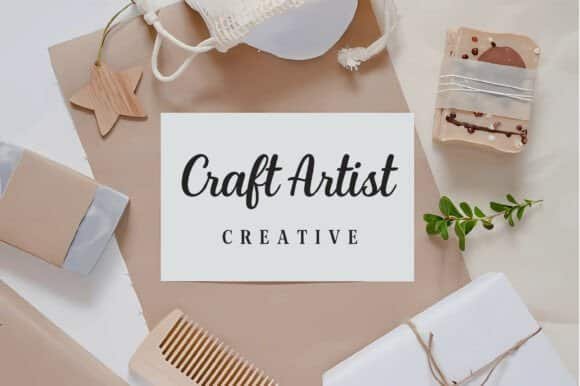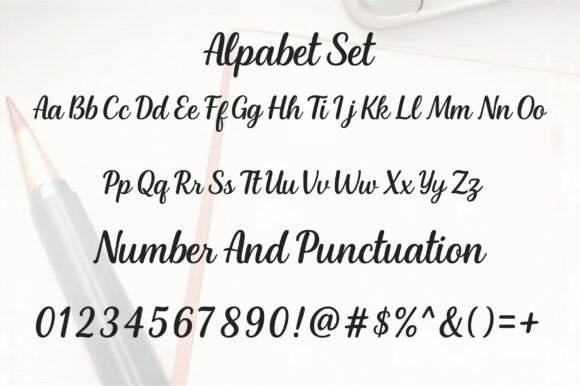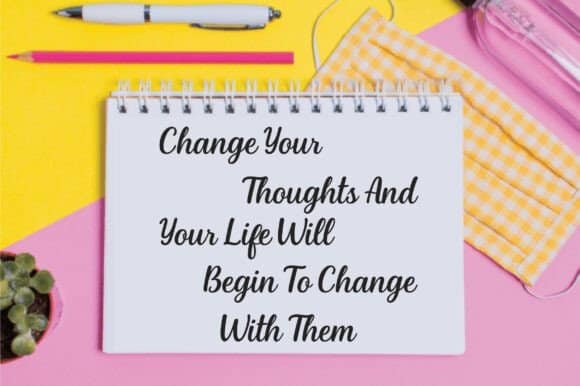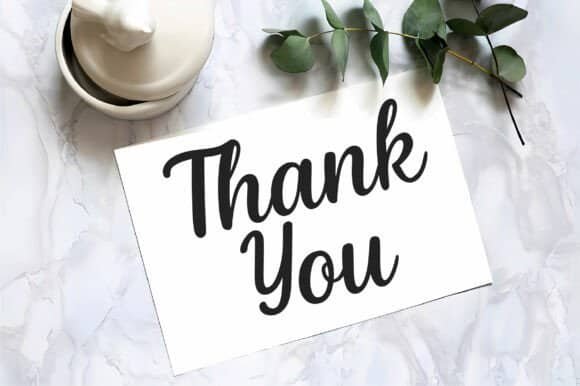
Natural Handwriting Font
Craft Artist
Discover the understated elegance of the Natural Handwriting font, a seamless and authentic modern script collection that looks exactly like genuine, everyday penmanship.